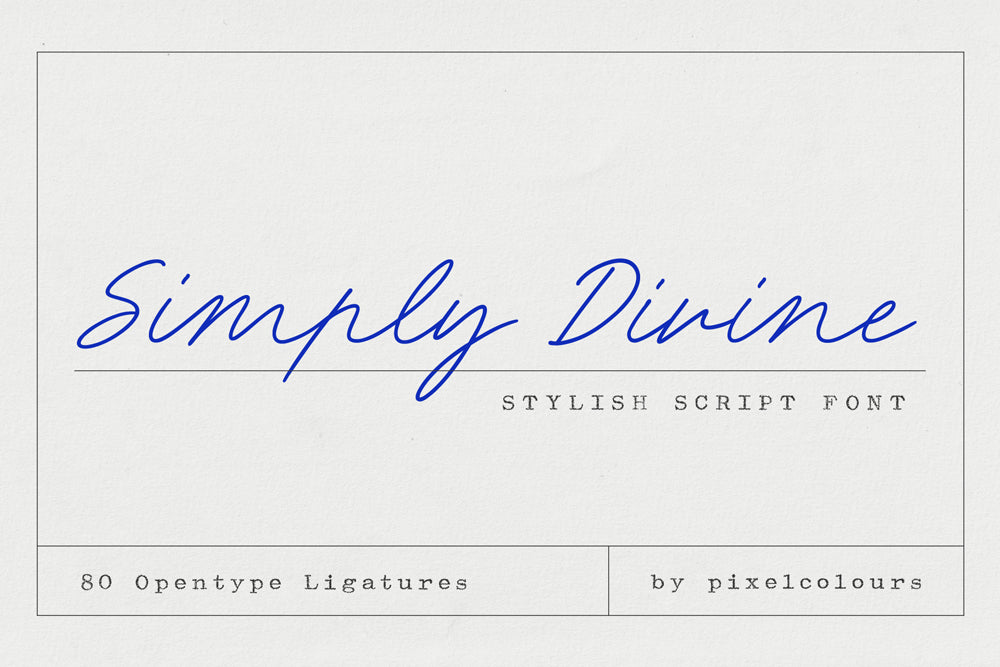
Simply Divine Stylish Font Trio
Simply Divine is a stylish font trio that combines a script font and a playful doodles font to create beautiful branding, logos, Instagram posts, Pinterest graphics, wedding stationery, and more.
Simply Divine Regular Font is a flowing cursive font with a subtle inky feel, like handwriting with a smooth gel pen, adding warmth and personality to your designs. Ideal for everything from elegant logos and branding to romantic wedding invitations. Its OpenType features include numerous ligatures, which automatically appear when enabled, ensuring a smooth and natural handwritten look in your designs. Perfect as a display font or for small, statement text.
Simply Divine Doodles Font lots of cute dingbats that adds charming accents and playful details, making your designs even more stylish and pretty.